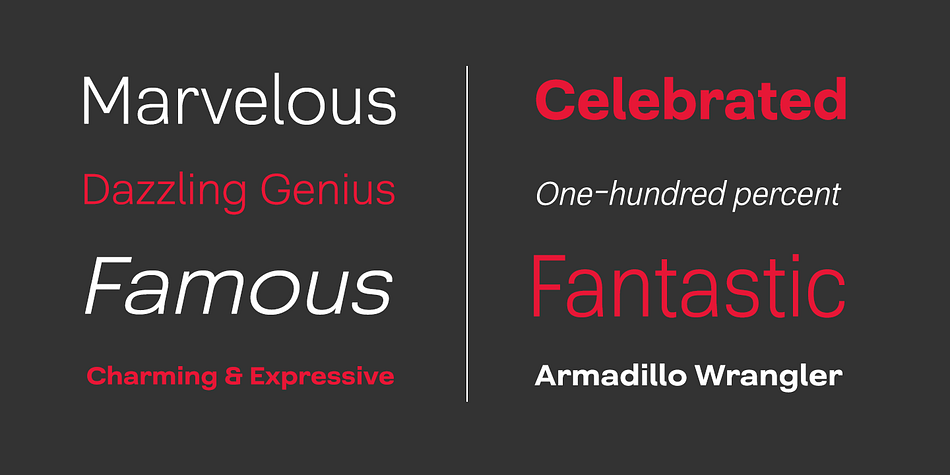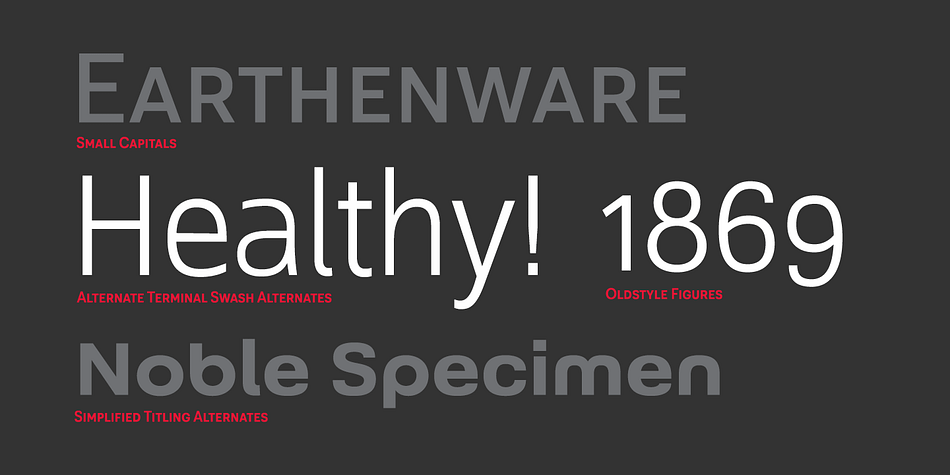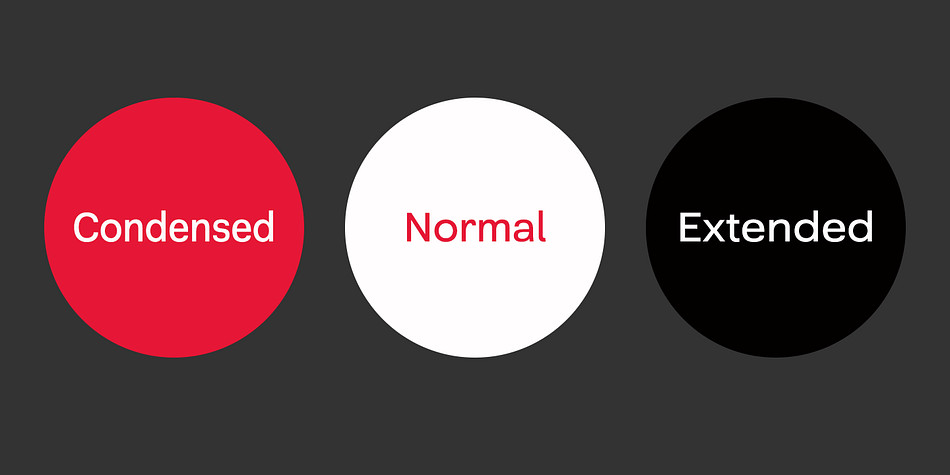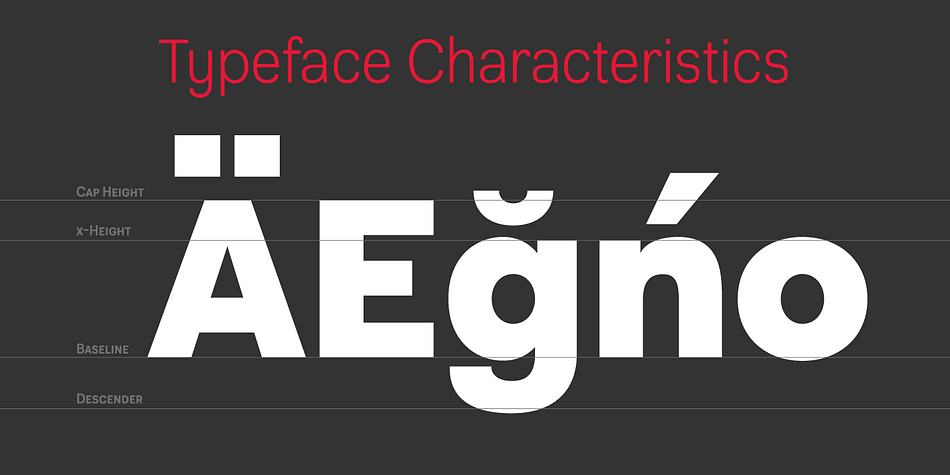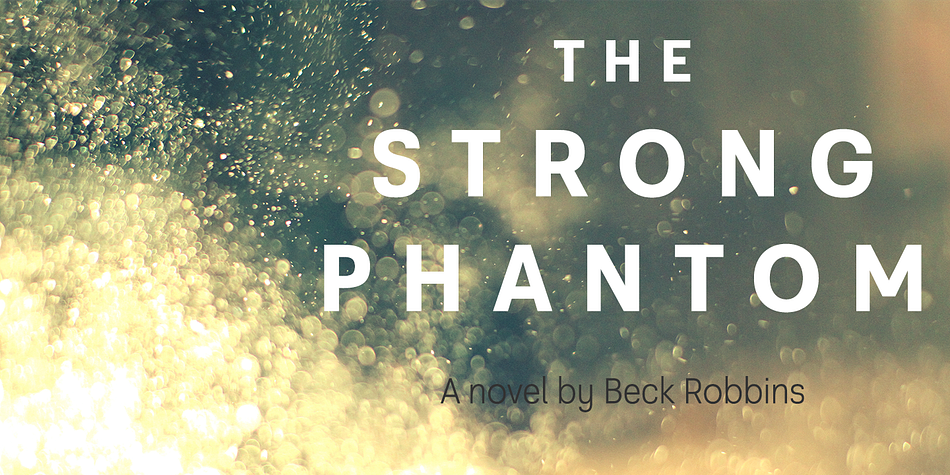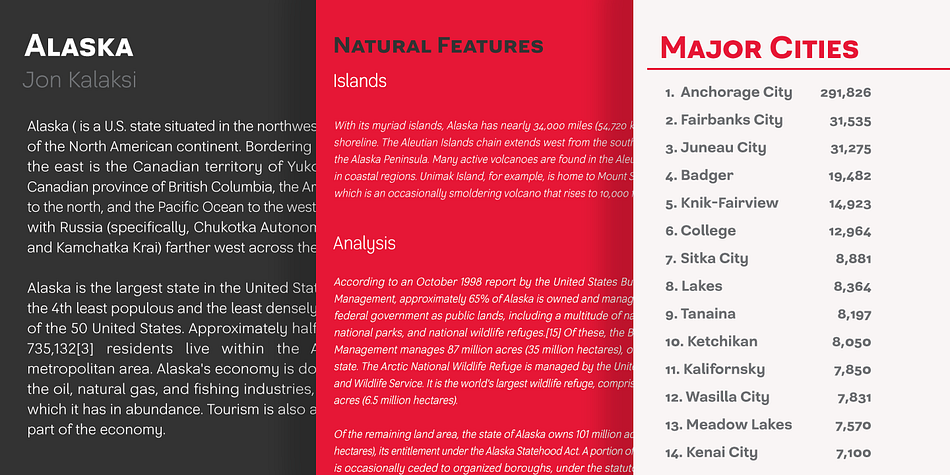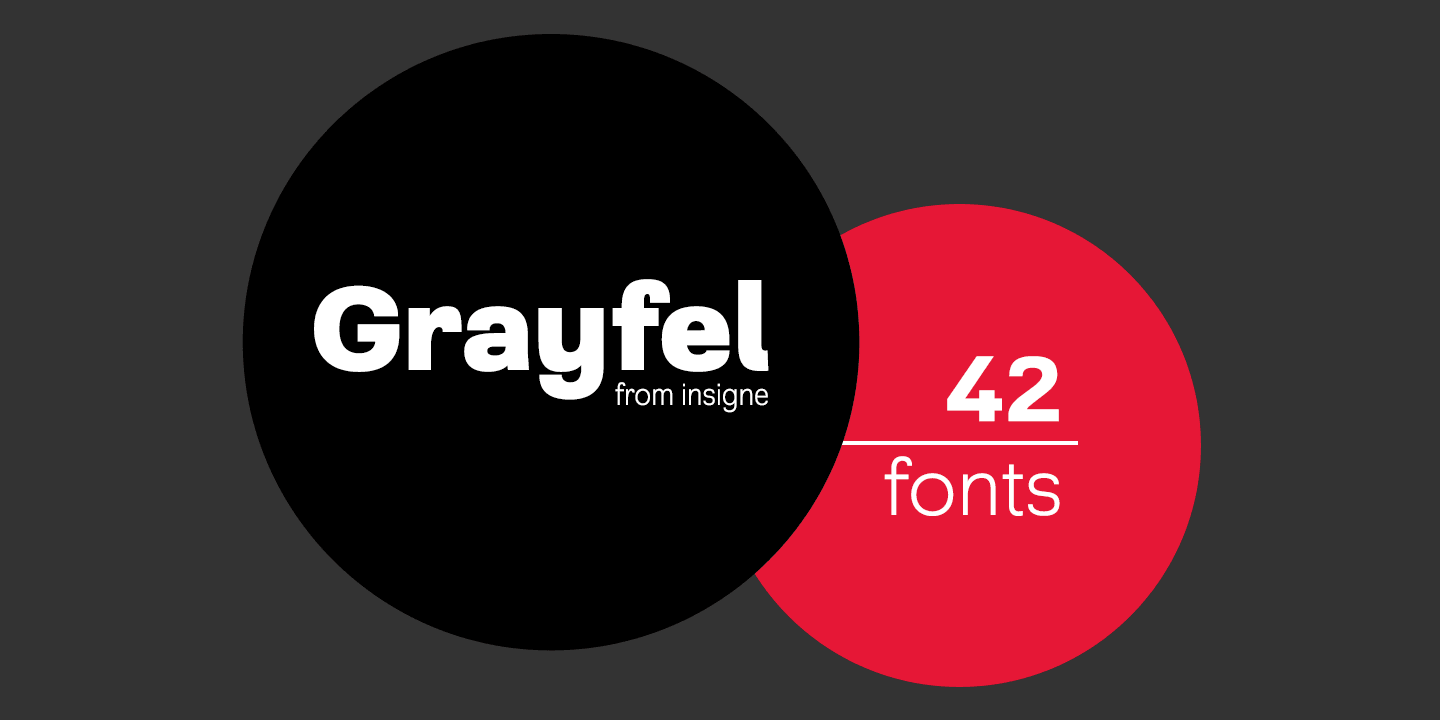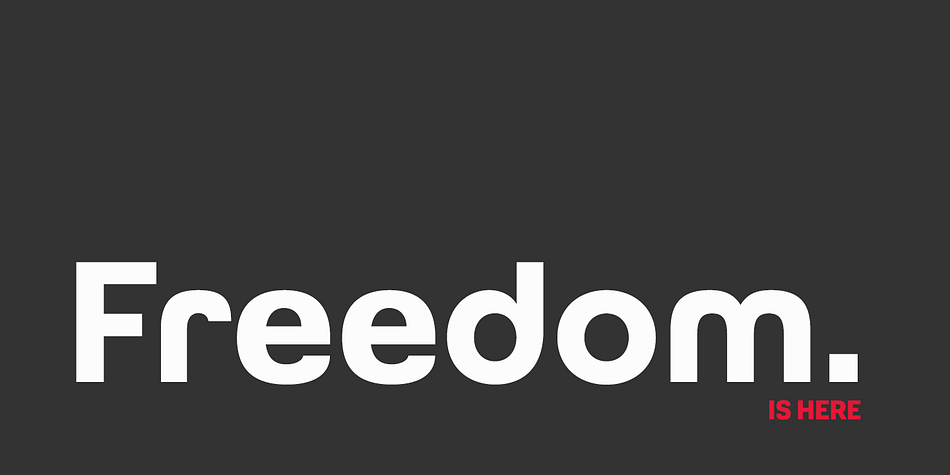
Grayfel is a sans serif font family. This typeface has forty-two styles and was published by Insigne Design.
As designers, we seek perfection and originality. The more we step back and look at our work, the more changes we tend to find necessary. Drastic modifications are inevitable.
The same is true of Grayfel. Grayfel began as an exercise at insigne to explore the crowded space of neutral sans. While the world of sans serifs is admittedly crowded, I still managed to find something new and different.
The final Grayfel consists of 42 full-featured OpenType fonts containing three widths: Regular, Condensed, and Extended. Every width consists of 14 fonts—seven weights with matching italics, making it a good companion for setting clear text and headlines for print and screen. OpenType features are also available. There’s a total selection of figure choices, such as proportional and old style figures. Additionally, Greyfel includes sophisticated typographic attributes: ligatures, fractions, alternate characters, small caps, superscripts and subscripts. Its extended character set supports Central, Western and Eastern European languages.
Optical compensations also mean the outcome of this family is a hybrid of humanistic proportions. It’s a well-finished design with optimized kerning gives it a friendly look. If you like sans serifs within the tradition of Futura, Helvetica, Avant Garde and Avenir, then you’ll love Greyfel, too.
Grayfel works well in a variety of applications. Subtly neutral yet fun, it’s suitable for headlines of all sizes as well as for text. Put it to the task for marketing, packaging, editorial work, branding and even on-screen projects.
Try it out: it’s not just fun and playful; it’s Grayfel.